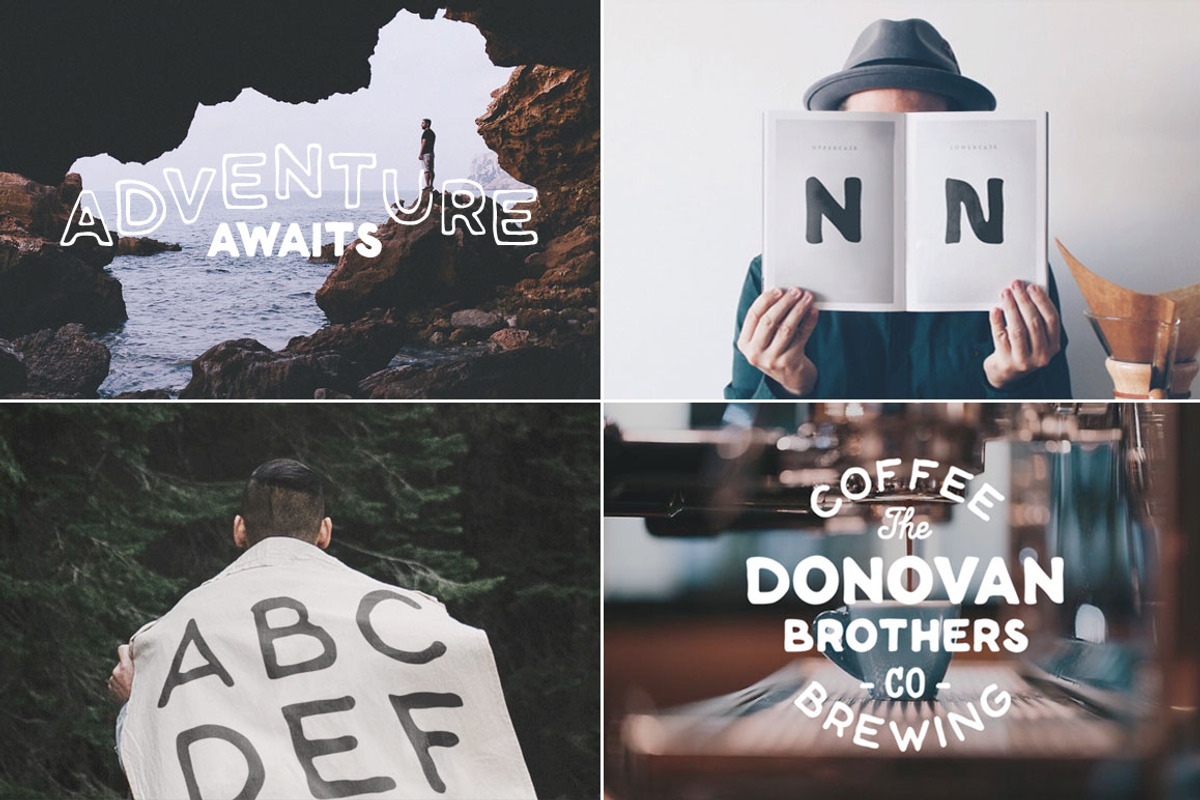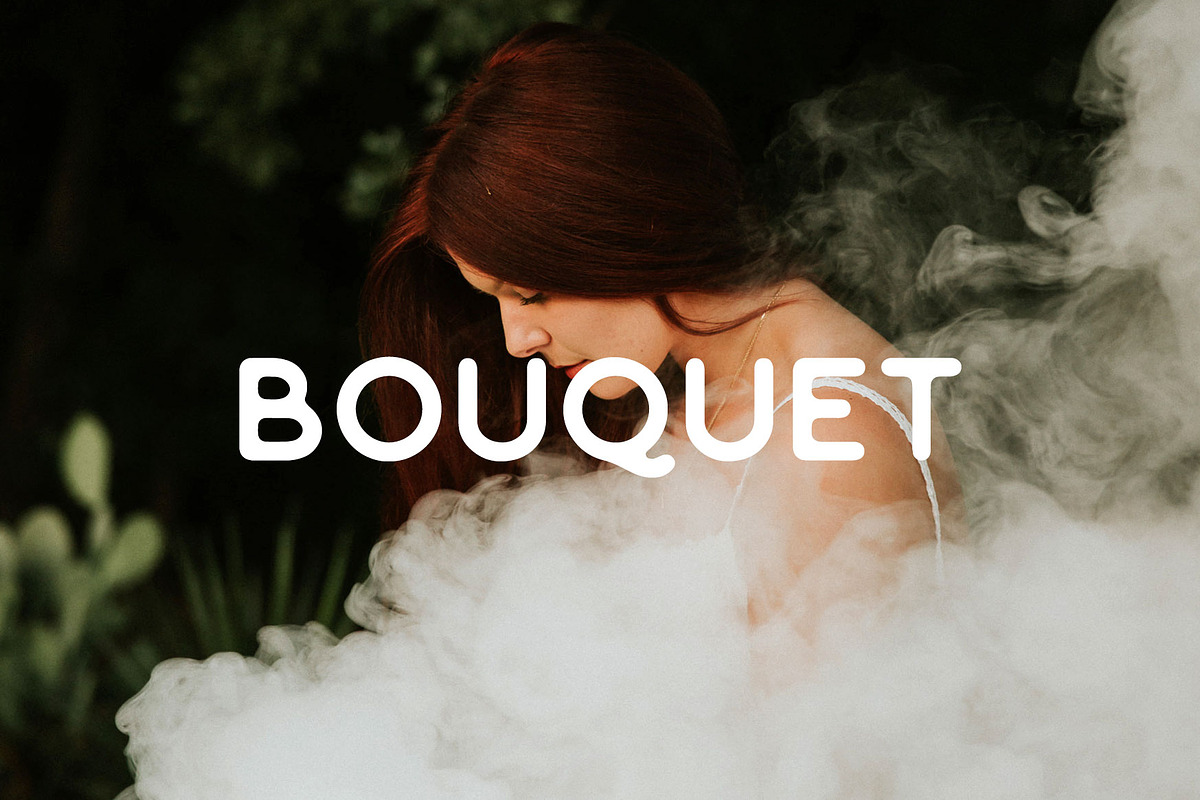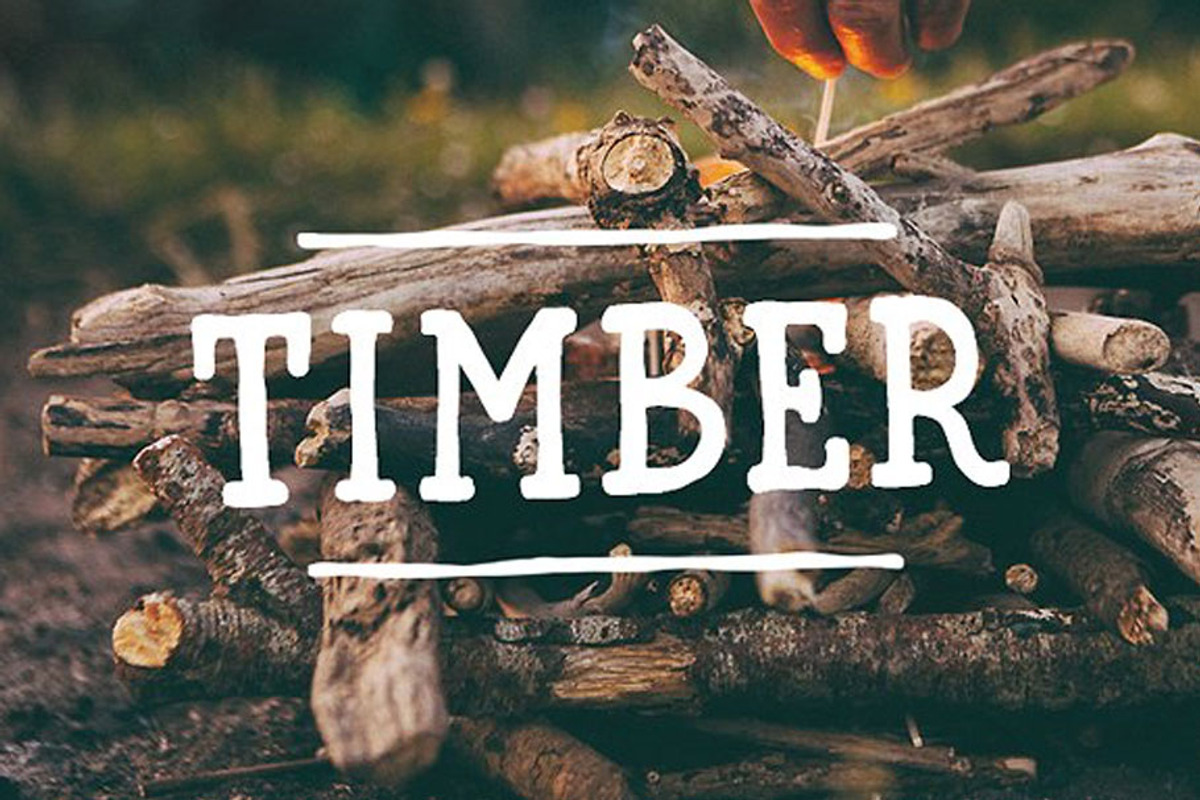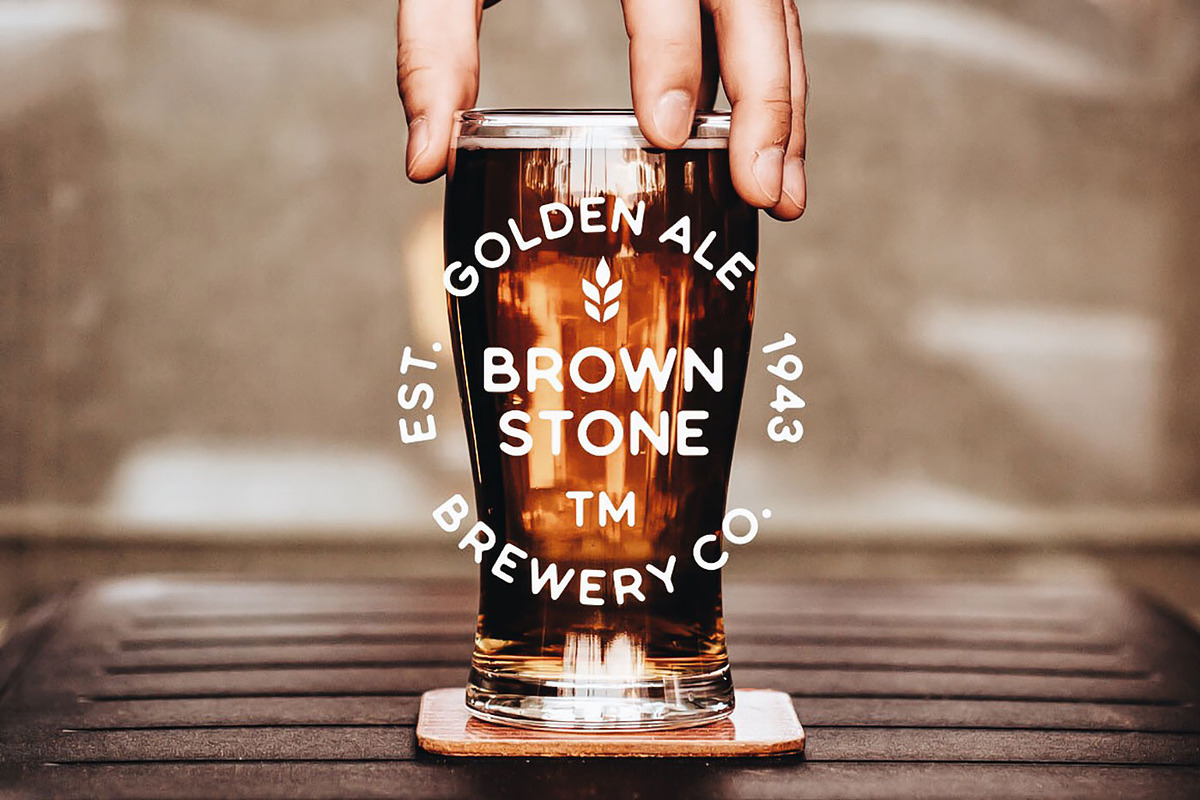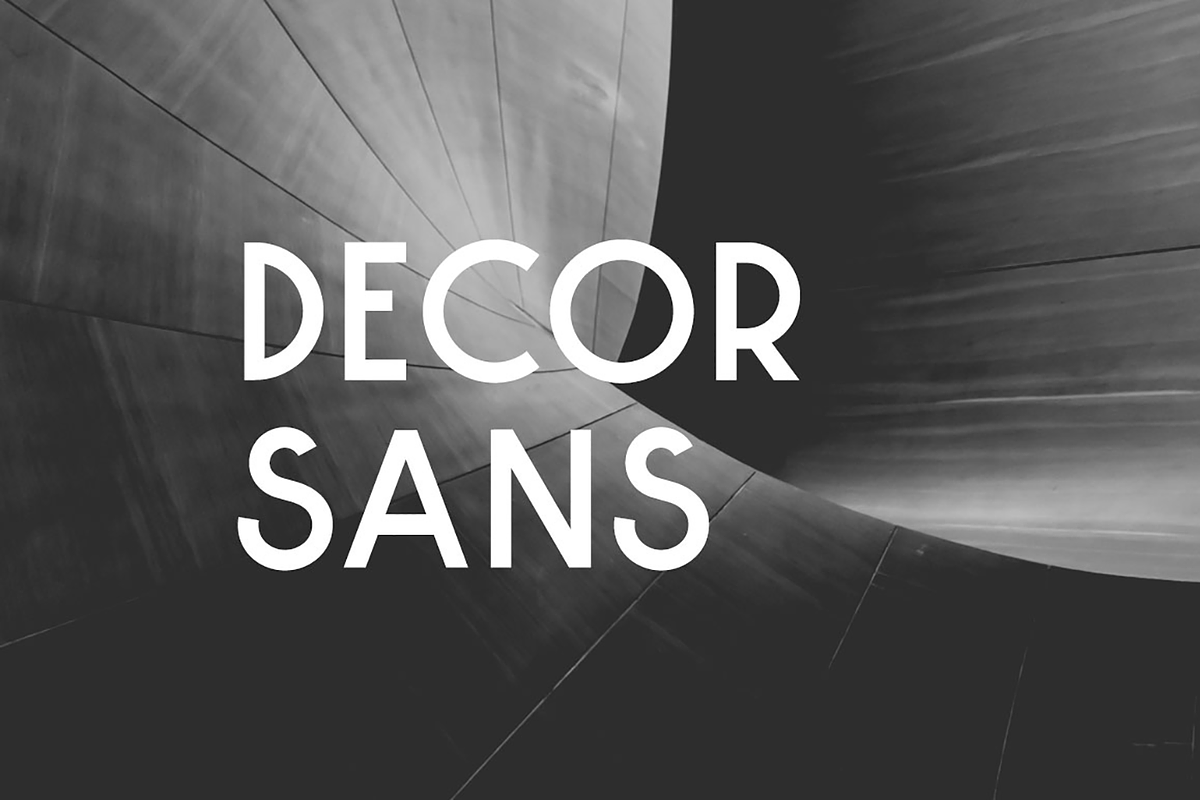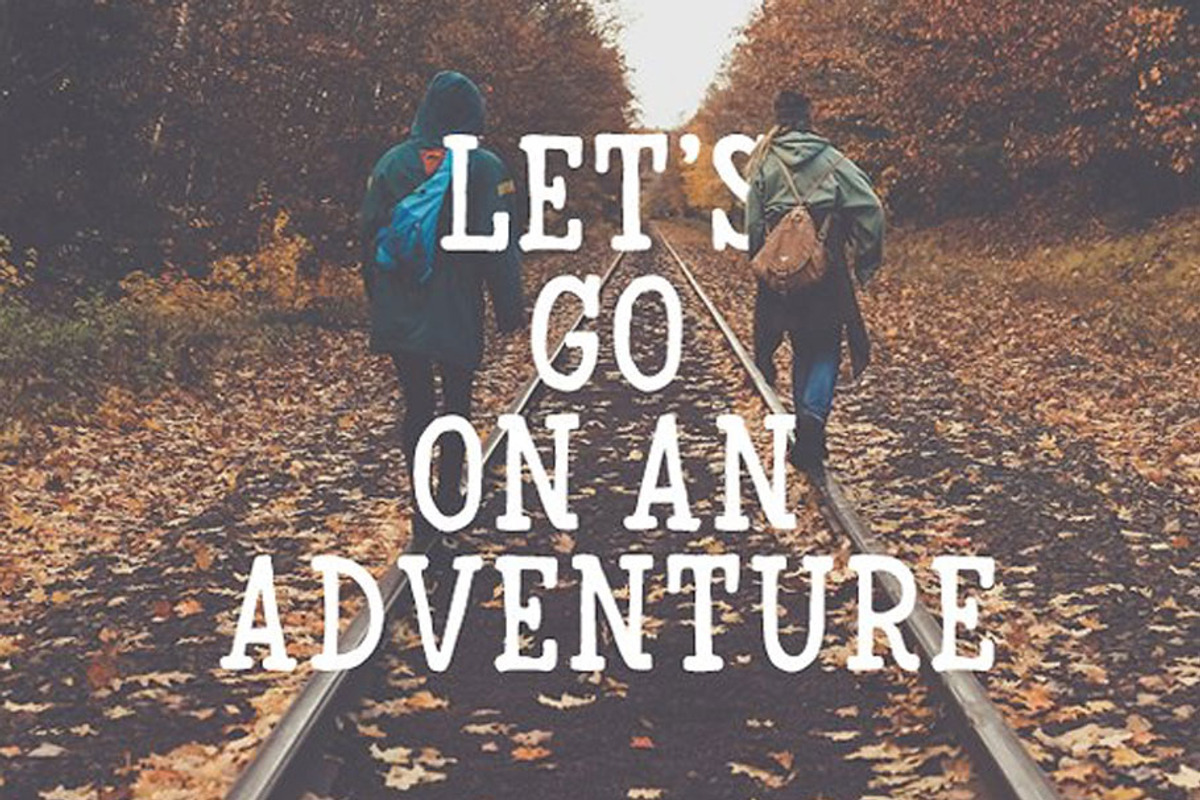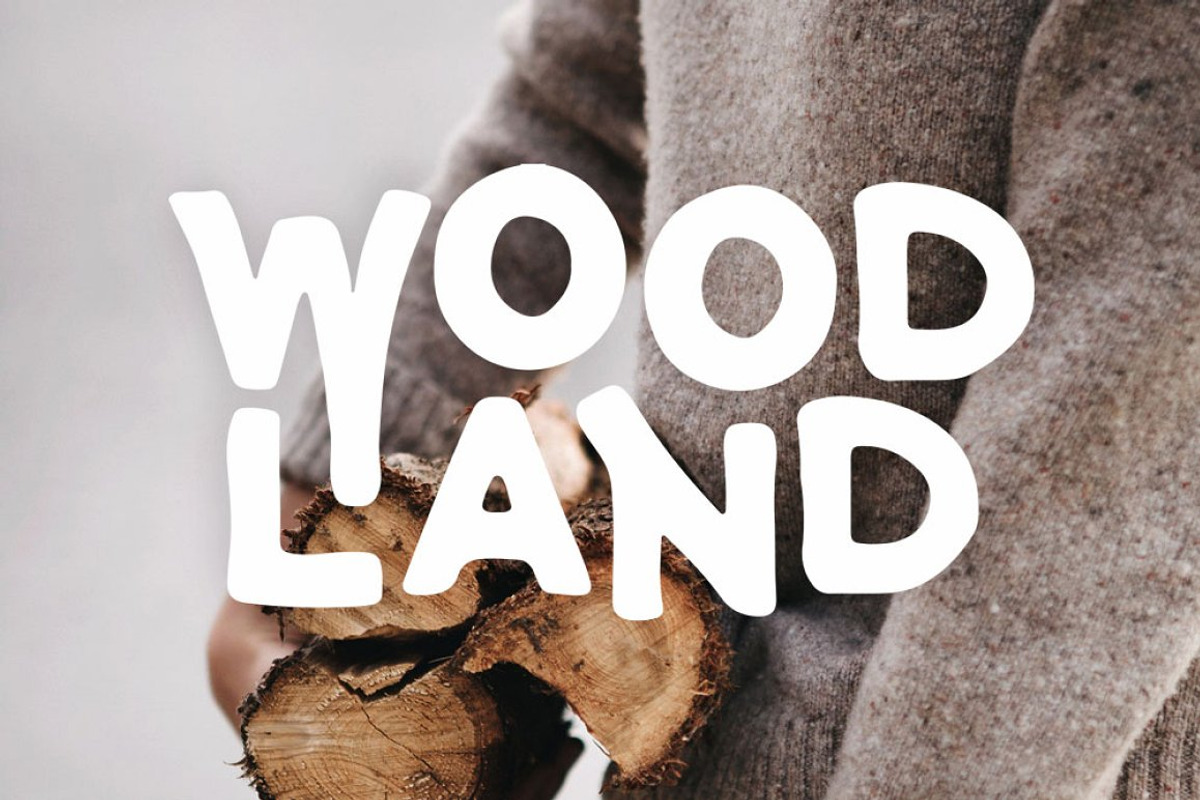
Introducing a new Font Bundle containing 4 unique hand drawn or vectored fonts. These typefaces are now available all together for half the original price!
"A fully handcrafted sans serif typeface"
3 Weights (Thin, Bold, Outline)
"A hand drawn typeface, with a vintage touch to it."
"A simple sans serif typeface, with rounded edges in favour of a smooth and clean look."
"Inspired by 1920s and '30s typography, while maintaining a modern aesthetic."